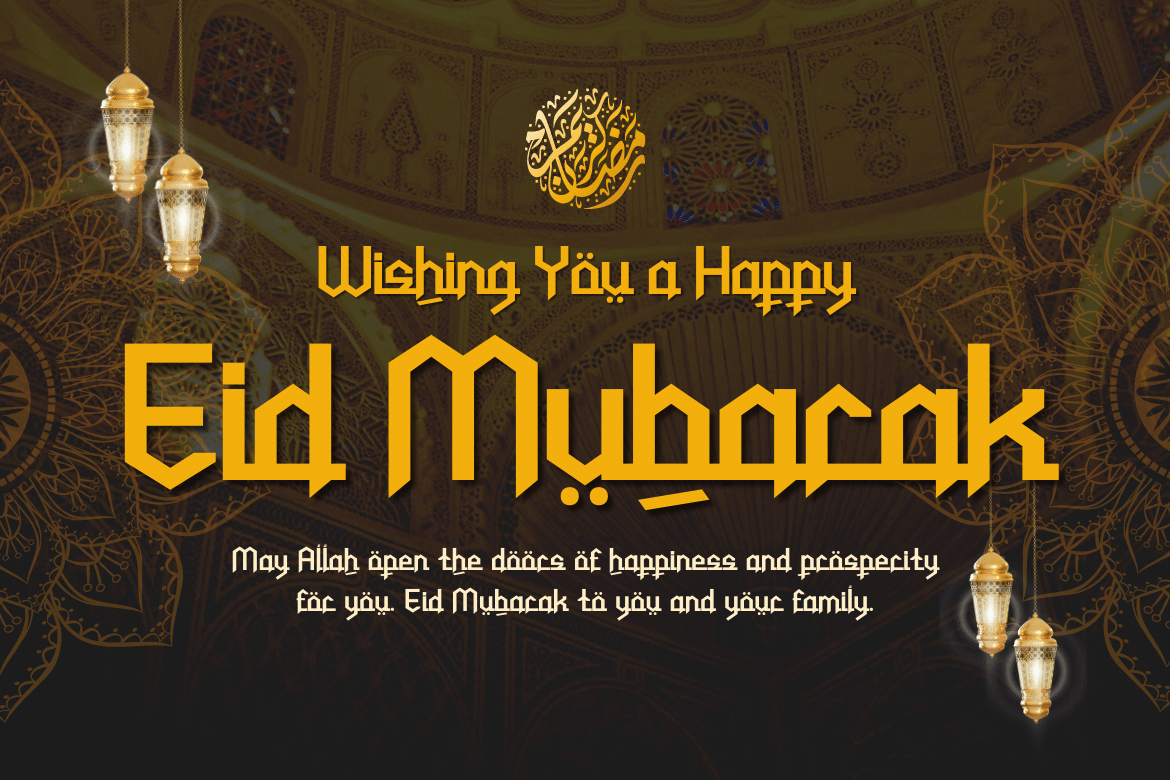
Kufwan Font
Kufwan Display Font
Kufwan Arabic style display font can be used to give your designs a genuine Arabic touch. The display font displays a beautiful style similar to the handwriting on a typical Arabic book. Use this font in your super projects to grab everyone’s attention. Don’t put off adding an elegant Arabic touch to your designs any longer.